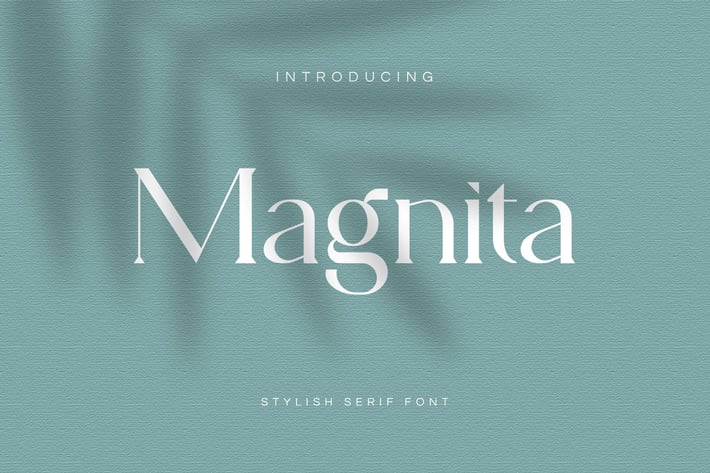
Magnita Serif Font
Magnita serif font this is a serif type font, this font is suitable for use with premium, elegant, luxury needs. such as hotels, salons, restaurants, cafes and others.
make everything beautiful and charming with Magnita Font